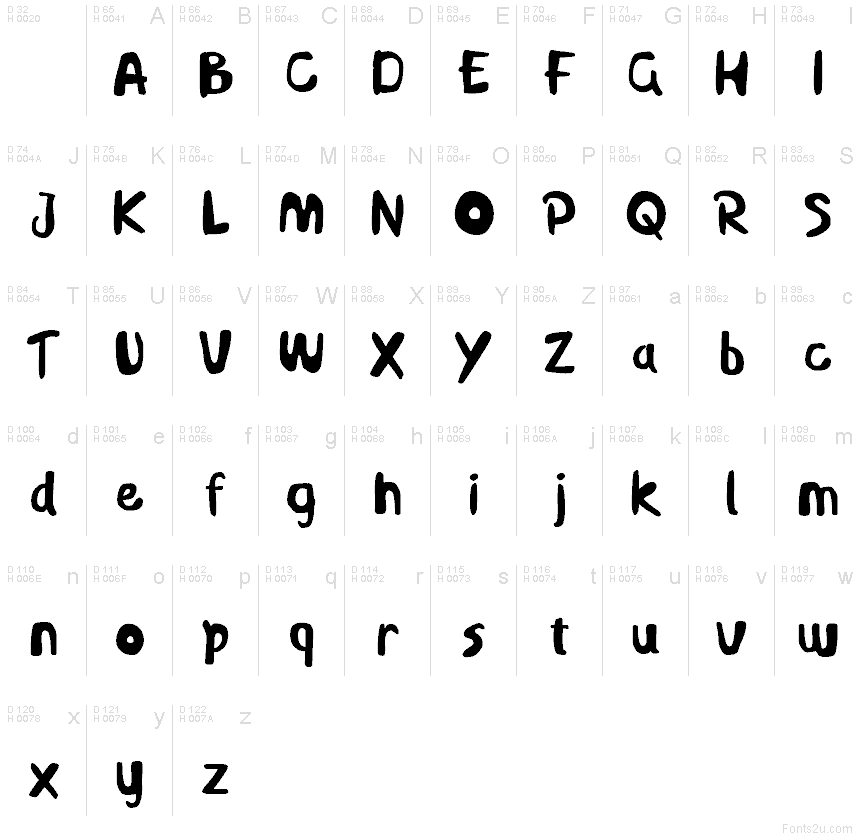
CS Rijeka Regular Demo
CS Rijeka typeface by Craft Supply Co. is a free brush font. It solves that common gap between hand-painted charm and clean readability: the strokes feel inky and soft, with rounded terminals and a gentle bounce that reads fast at a glance. The rhythm is steady, the counters stay open, and the weight is consistent enough to hold up on busy backgrounds without losing its friendly, handmade vibe.
Using CS Rijeka, headlines pop on cafe menus, food packaging, street-market signage, travel posters, kids’ event flyers, and social graphics. This free font shines on brand marks for artisanal goods and merch tags, too. Pair it with a clean, light grotesk and keep tracking tight to emphasize its smooth, chunky brush flow.